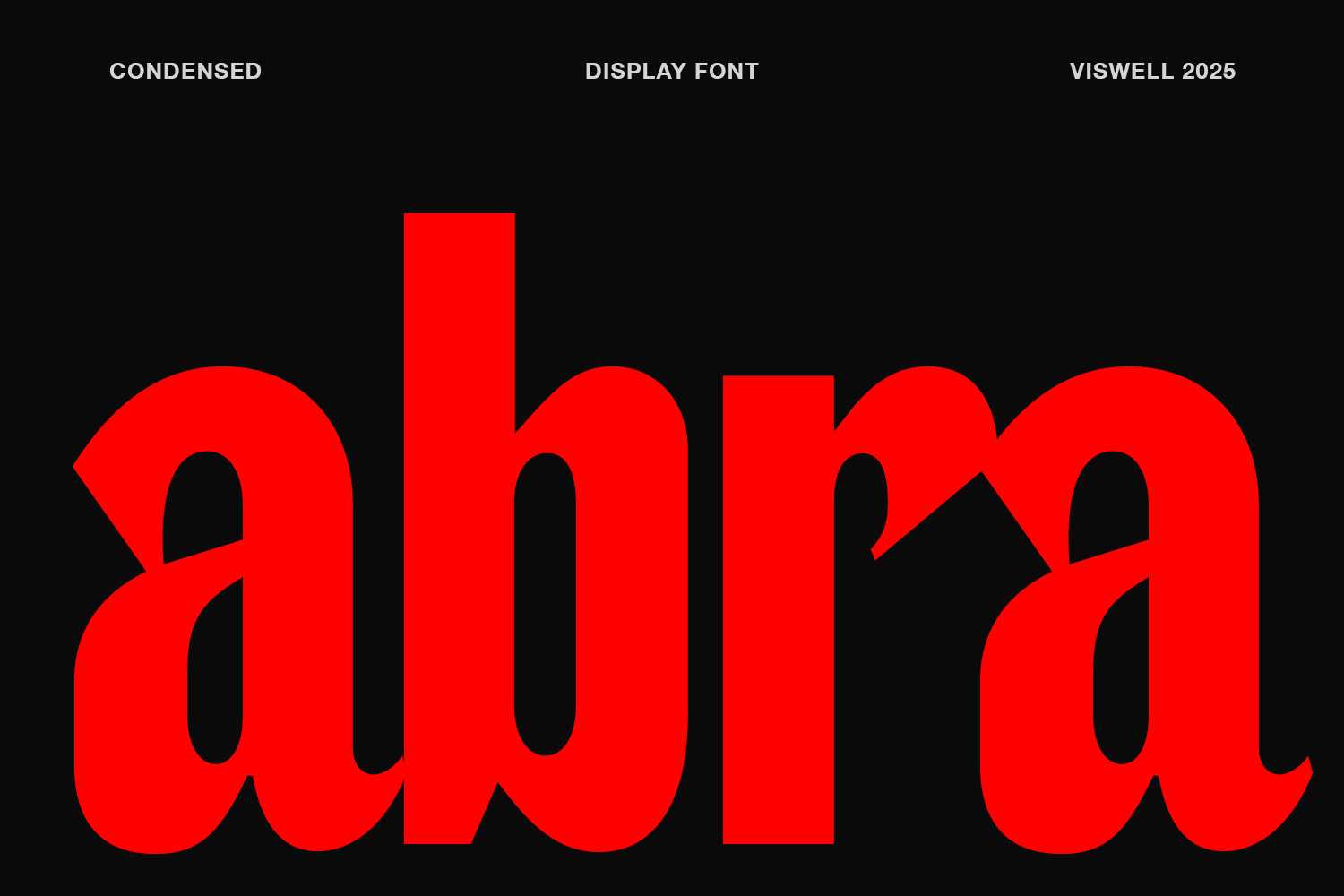
Abra - Display Font
Abra is a bold condensed display font that makes an instant impact. With sharp curves, tight spacing, and distinctive cuts—it’s designed to stand out in headlines, posters, and modern branding. Abra brings a bold voice to minimal layouts without losing clarity.
Perfect for designers who want something daring yet functional, Abra combines style with strength. Whether you’re creating a fashion spread, a music cover, or a bold identity, this font delivers attitude and elegance in one sleek package.